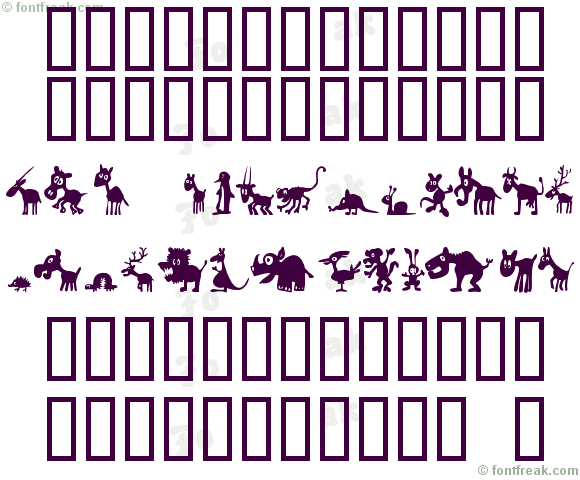
Win Pets 1
About WinPets 1
The WinPets 1 font, designed by Samuel Marcius in 1998, is a delightful display font that captures a playful and whimsical essence. This decorative typeface features a unique combination of rounded forms and charming details that evoke a sense of fun and creativity. The strokes are predominantly consistent in weight, creating a harmonious look, while the rounded edges add a friendly softness that makes it visually appealing. The spacing between the characters is well-balanced, ensuring legibility and a cohesive appearance across various applications.
WinPets 1 is particularly well-suited for projects that require a light-hearted touch. It shines in children's book covers, where its playful nature can engage young readers. Additionally, this font is an excellent choice for designing logos for pet-related businesses, such as veterinary clinics or pet grooming services, as its whimsical style resonates well with animal lovers. It also works beautifully for creating vibrant flyers and posters for community events, ensuring that the message stands out. Furthermore, it can be utilized in greeting cards or invitations for casual celebrations, adding a warm and inviting feel.